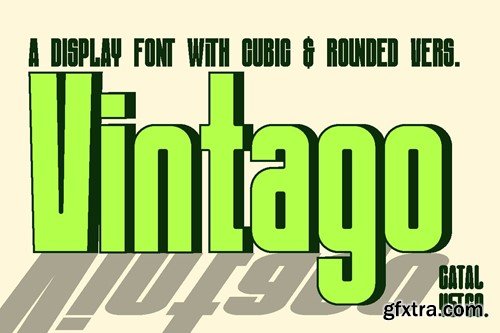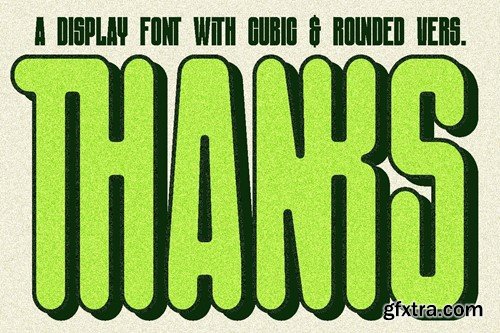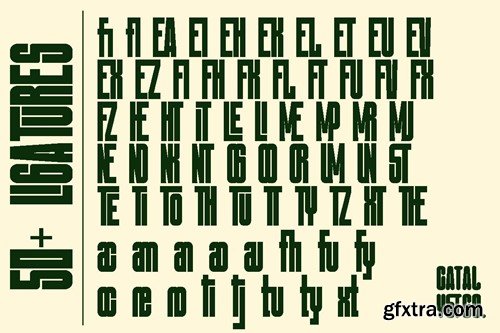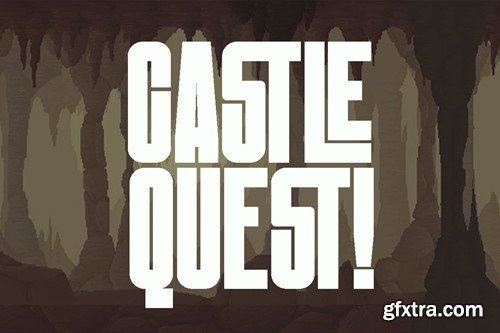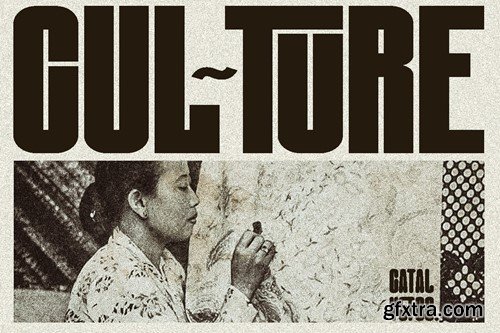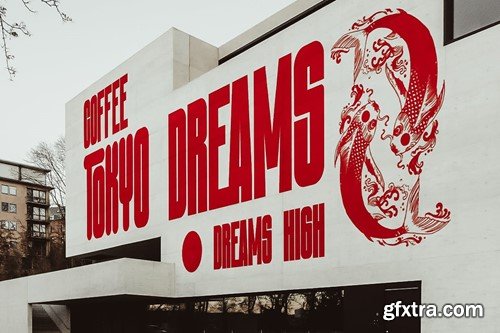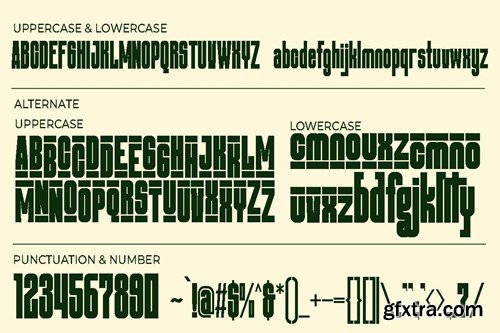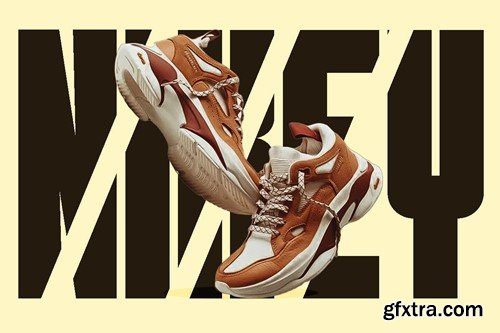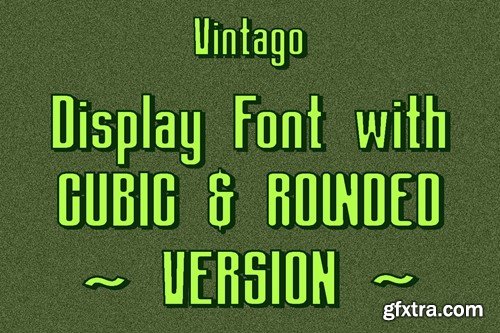
Vintago Display Font
Vintago Display Font typeface excellent used for the manufacture quote text, logotype, header magazine, t-shirt design and many more.
• Uppercase & Lowercase
• Ligatures & Alternate
• Numeral & Punctuations
• Multilingual Support